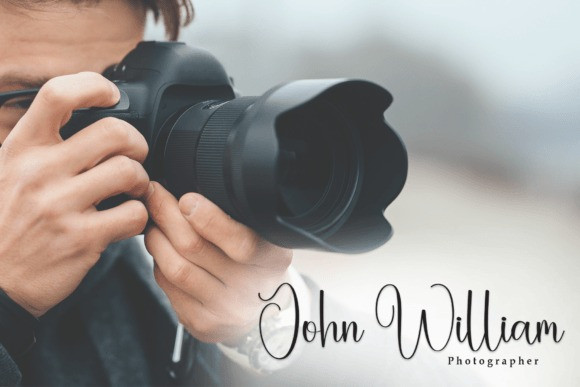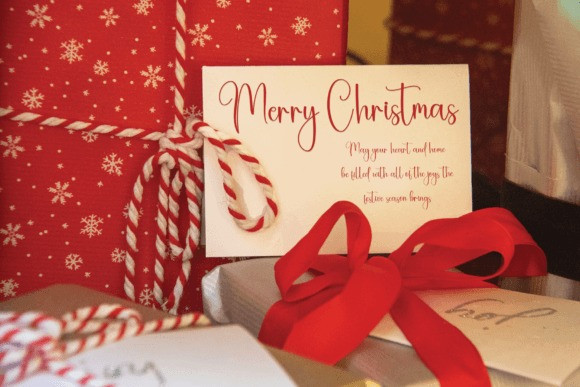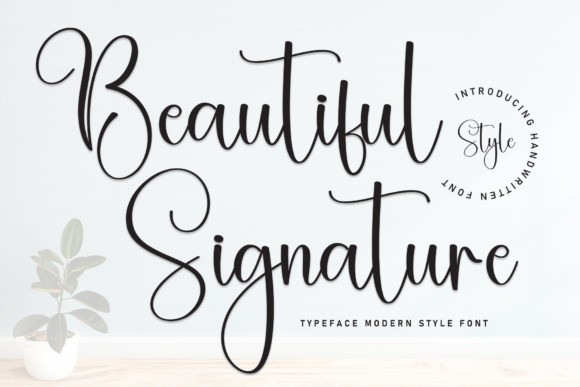
Beautyful Signature Font
Beautyful Signature Font is a stylish and incredibly elegant script font. It looks stunning on wedding invitations, thank you cards, quotes, greeting cards, logos, business cards and every other design which needs a handwritten touch.